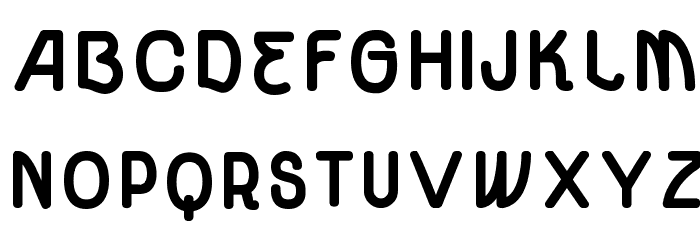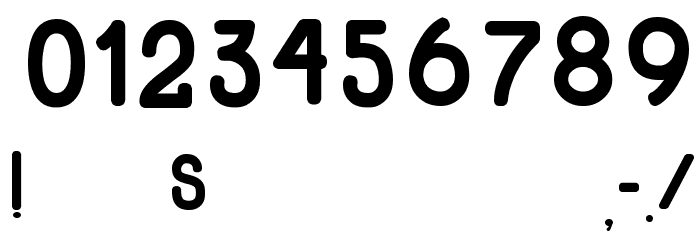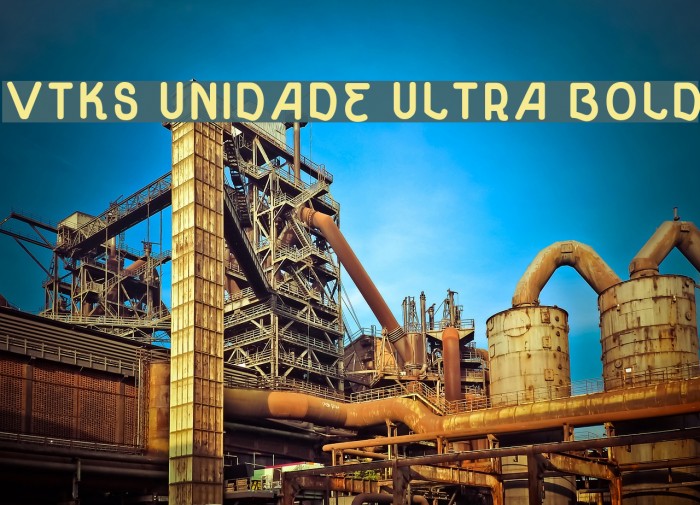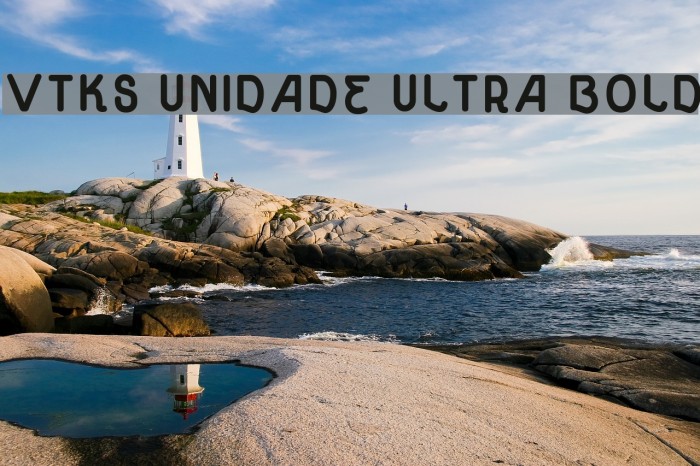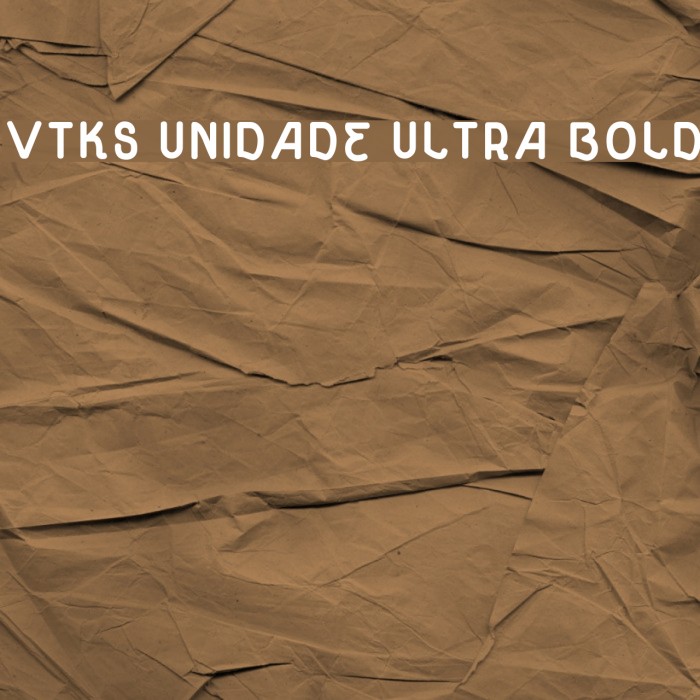
vtks unidade ultra bold Font
This font features a bold and rounded style with a playful and modern aesthetic. The characters are uniformly thick, giving them a strong presence on the page. The rounded edges and slightly condensed form add a friendly and approachable feel. The uppercase and lowercase letters maintain a consistent design, while the numerals and special characters complement the overall look. This font is ideal for projects that require a bold statement with a touch of whimsy.
A bold, rounded font with a playful and modern style.
- Proposed Projects: Ideal for branding, posters, children's books, and playful graphic designs.